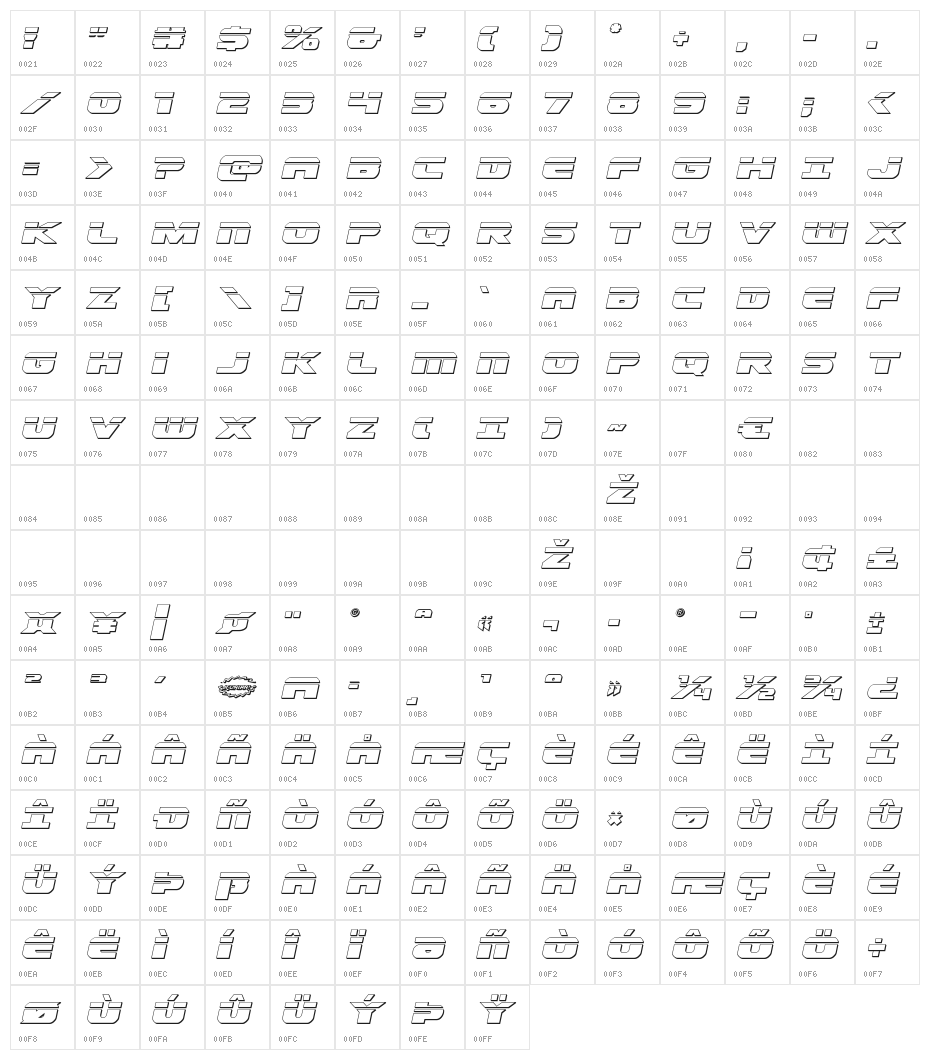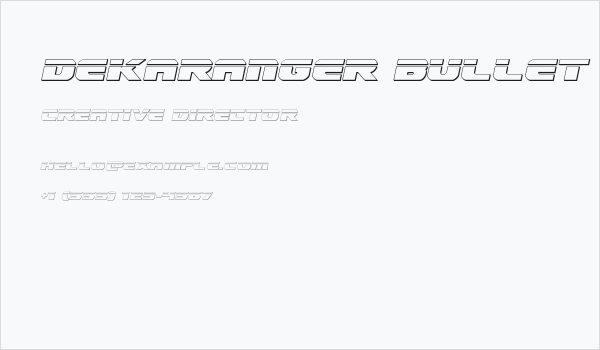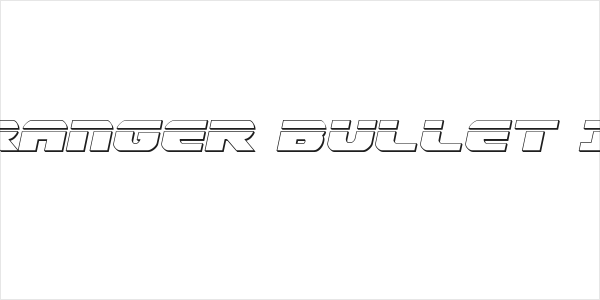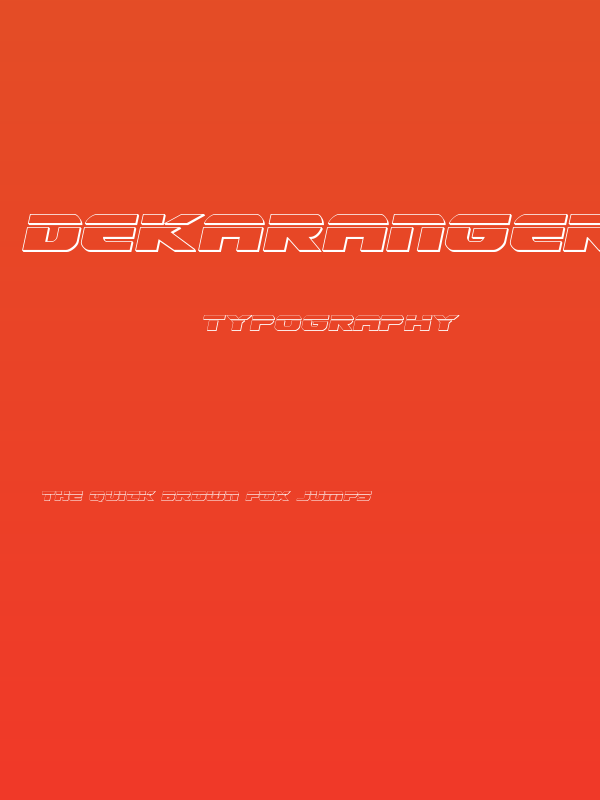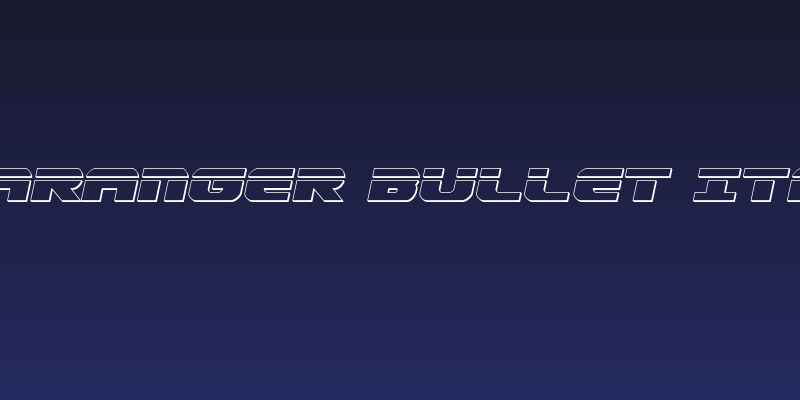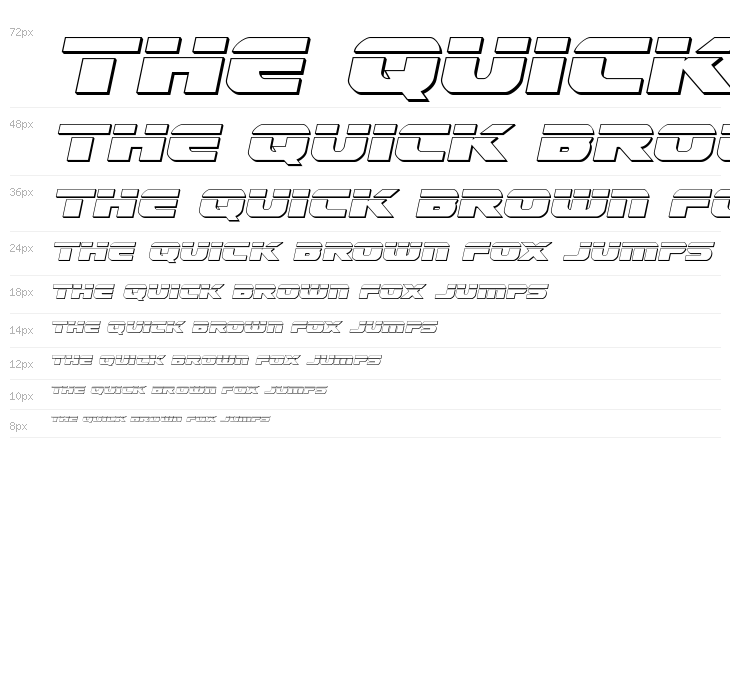
Dekaranger Bullet Italic Font
Dekaranger Bullet Italic Description
This font features a futuristic and dynamic design with a distinct italic slant, giving it a sense of motion and energy. The characters are outlined, creating a hollow effect that adds depth and dimension. Each letter and number is crafted with sharp angles and geometric shapes, emphasizing a modern and tech-inspired aesthetic. The spacing between characters is consistent, allowing for readability while maintaining the font's unique style. Special characters are designed to match the overall theme, ensuring a cohesive look across all elements.
| Proposed Projects | Ideal for sci-fi themed projects, tech branding, video game titles, and futuristic posters. |